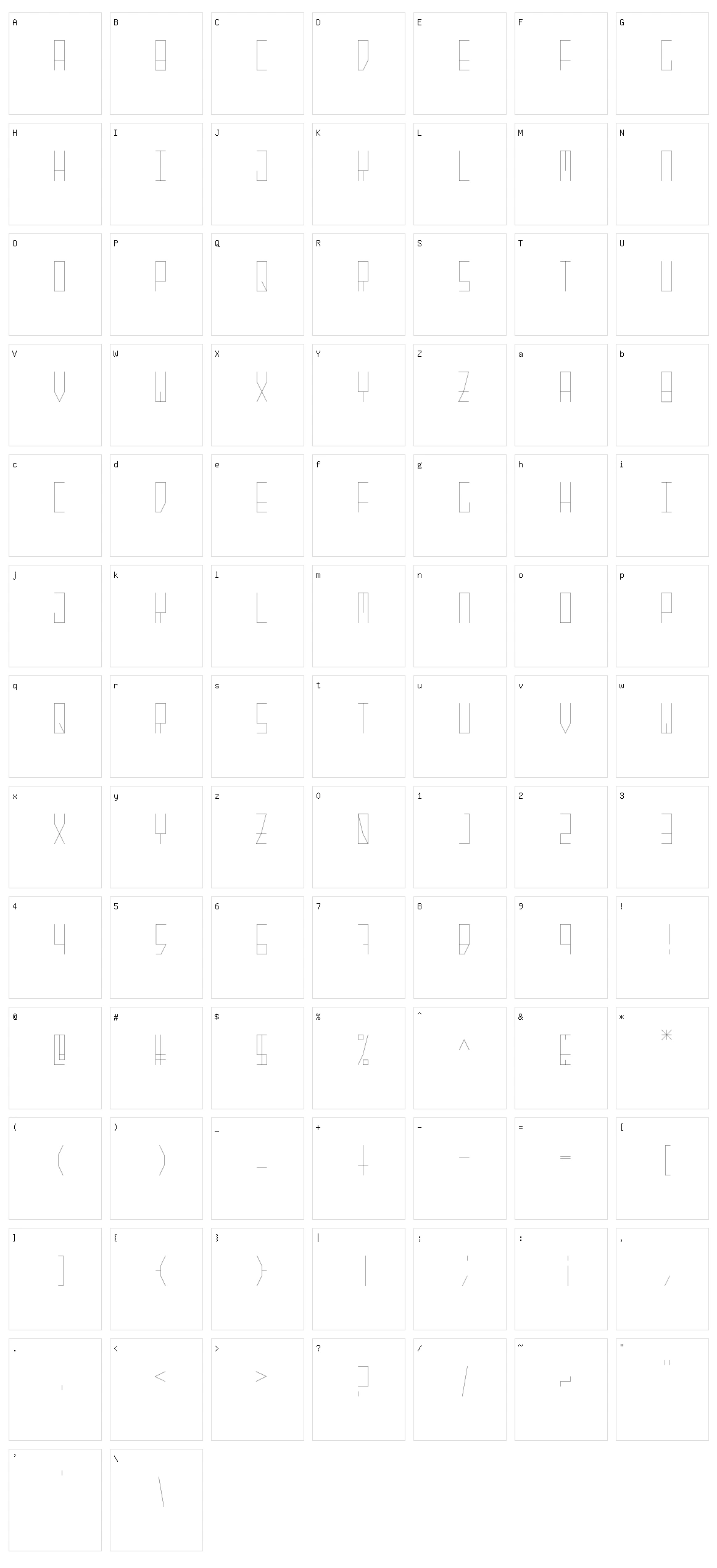
The free font Granite Modern is carefully designed by Harry Blakeman, showcasing a thoughtful balance of creativity and usability and falls under the Square font style. When you download the ZIP file, it contains only 3.41 KB of font files, making it lightweight and quick to download. Please review the license details below to understand permitted usage and distribution rights. If license information is not available, we recommend using this font for personal projects only or contacting the author directly for commercial usage permissions.